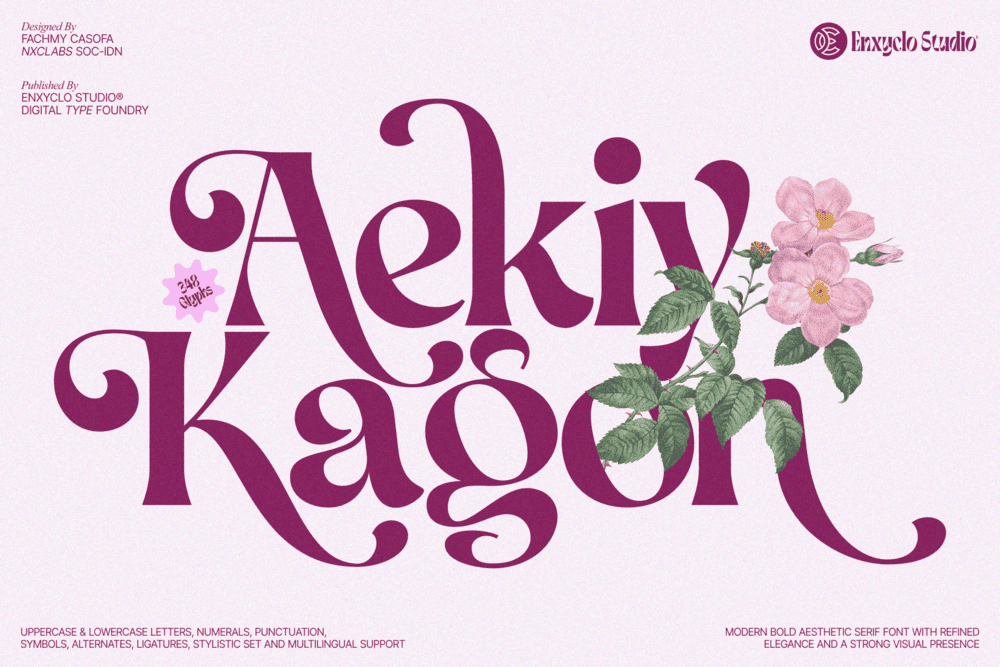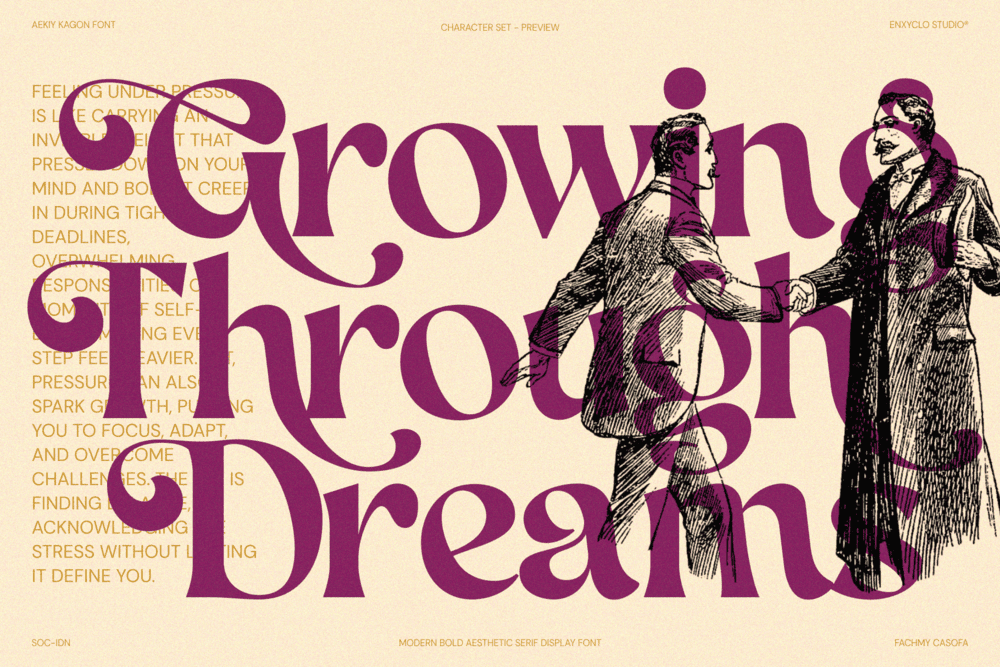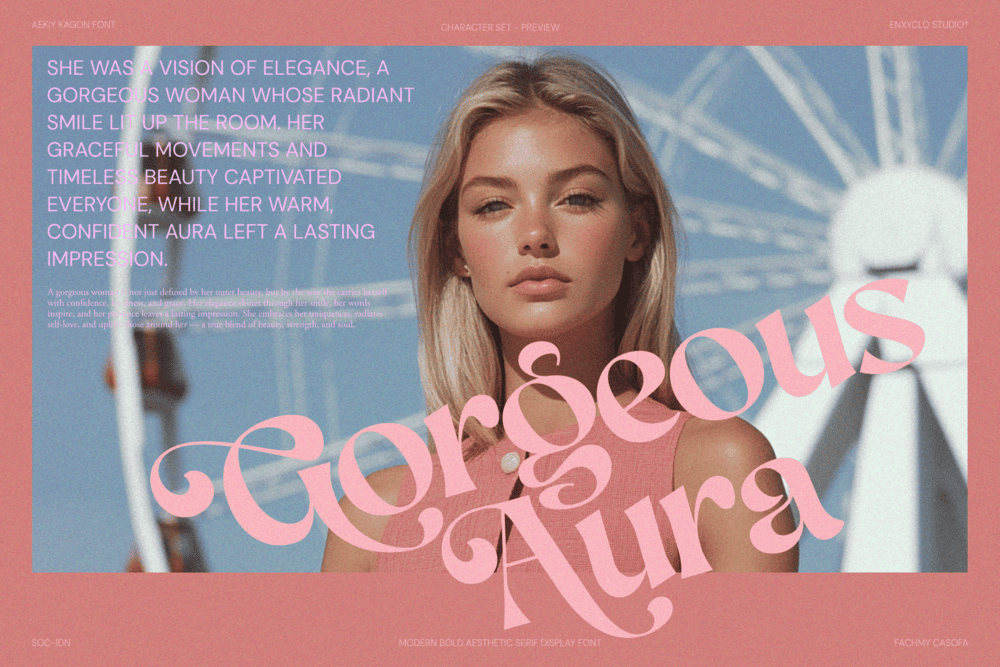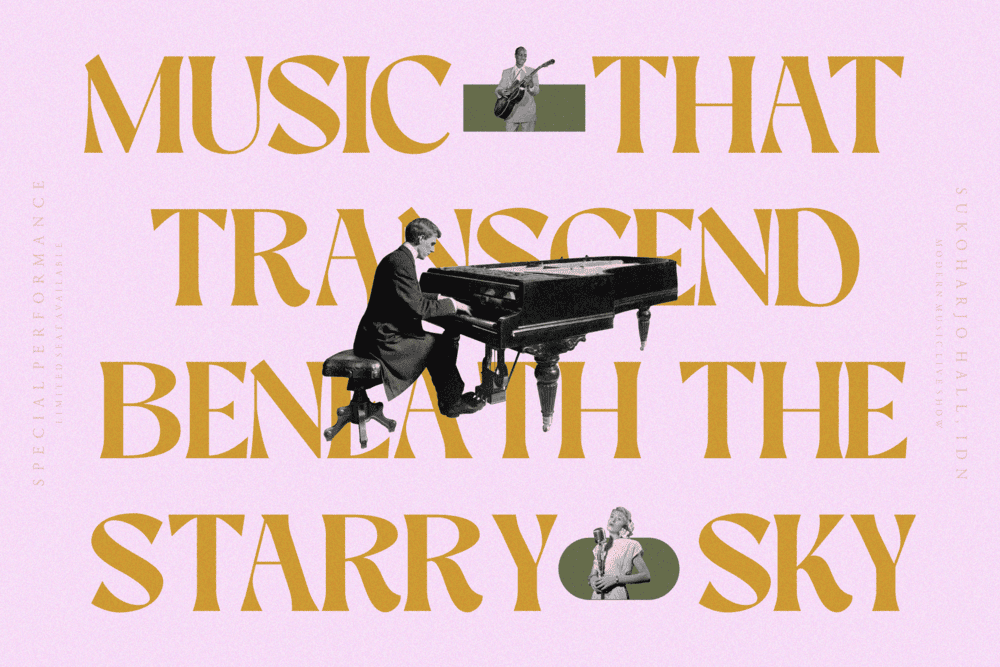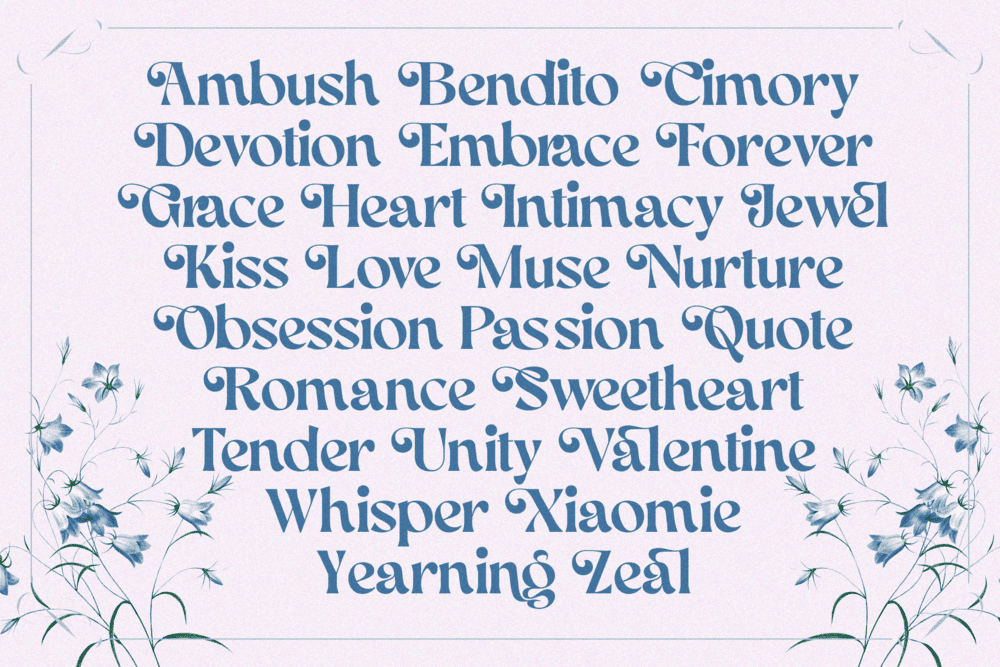
AEKIY KAGON is a timeless modern serif font that blends bold elegance, luxurious aesthetics, and contemporary sophistication into one striking typeface. Designed with refined serif details and graceful swash elements, this font delivers a lavish and premium visual presence that feels both fashionable and unforgettable.
Crafted for modern creatives and high-end brands, AEKIY KAGON combines clean structure, artistic ligatures, and expressive curves to create a perfect balance between minimal elegance and bold personality. Every letterform is thoughtfully shaped to enhance readability while maintaining a rich, aesthetic character—making it ideal for luxury logos, fashion branding, boutique identities, cosmetic packaging, and premium skincare visuals.
Its modern yet timeless design captures the essence of glamour and refined beauty. Whether used for a sophisticated logotype, elegant editorial layout, or futuristic brand identity, AEKIY KAGON transforms typography into a statement of style and exclusivity. The bold serif structure gives strength and confidence, while the flowing swash details add a touch of graceful luxury and creative charm.
Designed to elevate branding with a rich and polished aesthetic, AEKIY KAGON is more than just a font—it is a creative design tool for building premium visual identities that feel elegant, modern, and powerfully distinctive.
FEATURE
• Uppercase & Lowercase Letters
• Numeral, Punctuation Marks, Currencies & Symbol Set
• Alternate, Stylistic Set & Ligature
PERFECT FOR
• Luxury Logo & Branding
• Fashion & Boutique Identity
• Beauty, Cosmetic & Skincare Packaging
• Elegant Wedding Invitations
• Premium Editorial & Magazine Design
• Glamour Social Media Visuals
• Signature Logos & Personal Branding
• High-End Product Labels
• Aesthetic Advertising Campaigns
• Luxury Event & Stationery Design